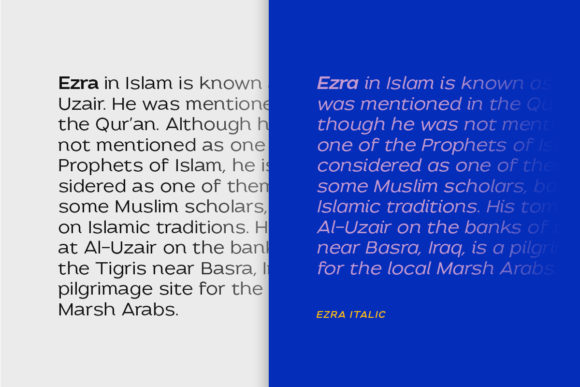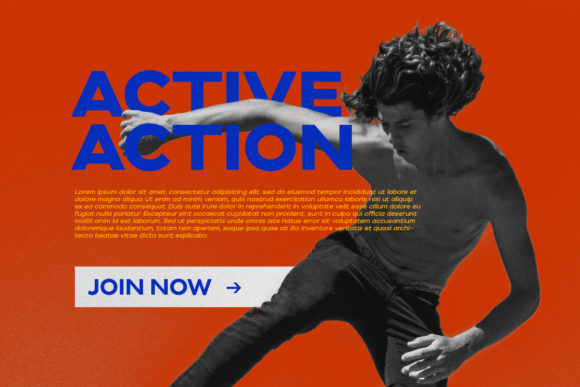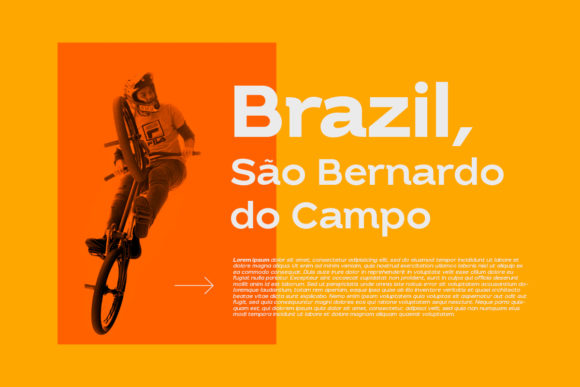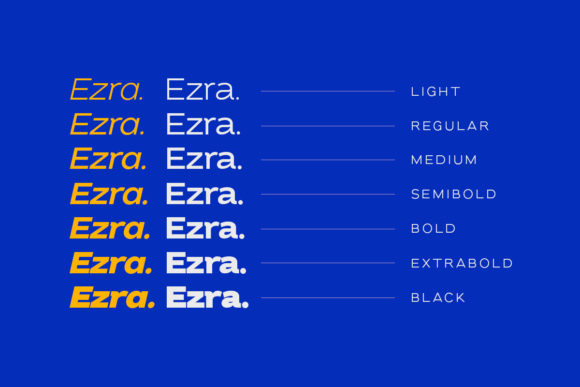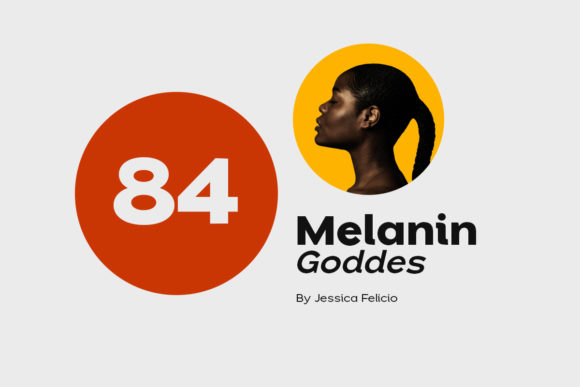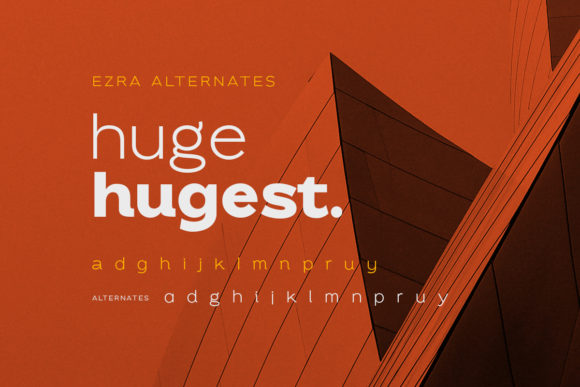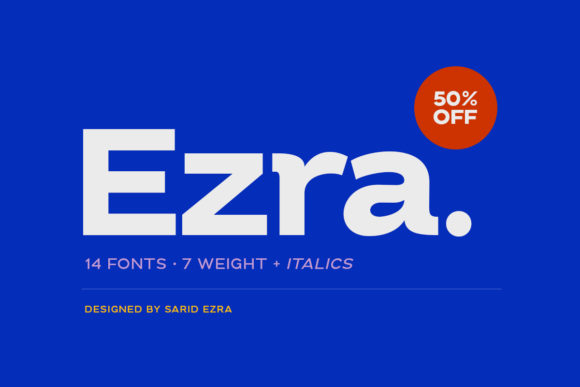
Introducing Ezra Font: A Bold and Modern Sans Serif for Your Design Needs
In the world of typography, fonts play a crucial role in conveying messages, setting tones, and creating visual identities. For designers and crafters, finding the perfect font can make all the difference in their projects. If you’re on the hunt for a bold and modern sans serif font that can elevate your designs, look no further than Ezra Font. In this article, we’ll dive into the features, benefits, and uses of Ezra Font, as well as explore its inclusion in the Creative Fabrica (CF) Class: Designing a Type and Image Poster in Adobe Photoshop.
What is Ezra Font?
Ezra Font is a sleek and contemporary sans serif font designed to make a statement. Its clean lines, geometric shapes, and bold structure make it perfect for use in a variety of contexts, from digital media to print materials. Whether you’re working on a busy background or using it as a standalone headline, Ezra Font is sure to grab attention and leave a lasting impression.
Key Features of Ezra Font
- Bold and Modern Design: Ezra Font boasts a bold and modern sans serif design that’s perfect for creating striking headlines, titles, and captions.
- Versatile and Adaptable: This font is highly versatile and can be used in various contexts, including digital media, print materials, and more.
- Easy to Read: Despite its bold design, Ezra Font remains easy to read, making it perfect for use in body text, headings, and titles.
- High-Quality and Professional: Ezra Font is a high-quality, professionally designed font that’s sure to elevate your designs and give them a polished look.
Benefits of Using Ezra Font
- Enhance Your Brand’s Visual Identity: With Ezra Font, you can create a bold and modern visual identity for your brand that’s sure to stand out from the crowd.
- Elevate Your Designs: This font is perfect for designers looking to add a touch of sophistication and elegance to their projects.
In conclusion, Ezra Font is a bold and modern sans serif font that’s perfect for designers and crafters looking to elevate their designs. With its clean lines, geometric shapes, and bold structure, Ezra Font is sure to make a statement in any context. Whether you’re working on a digital project or a print material, this font is highly versatile and adaptable. Don’t miss out on the opportunity to learn more about Ezra Font and its applications in the Creative Fabrica Class: Designing a Type and Image Poster in Adobe Photoshop.